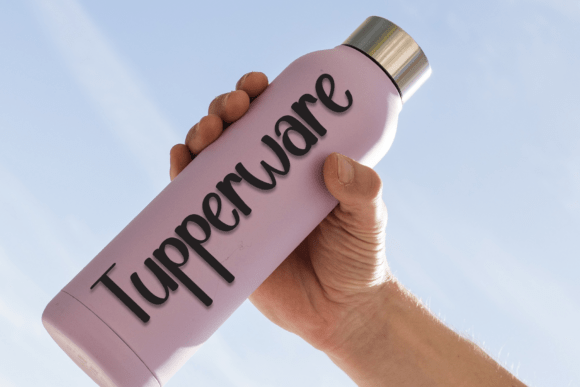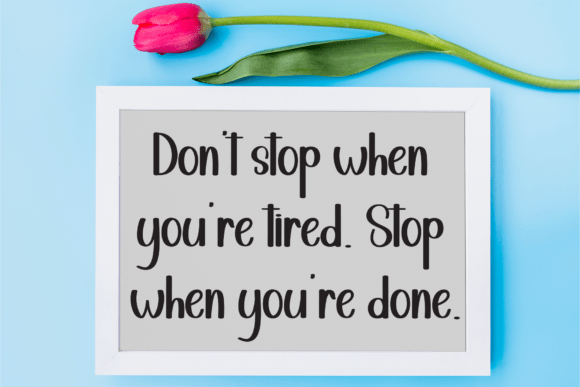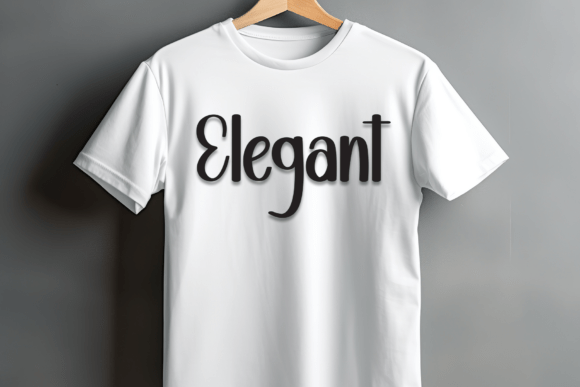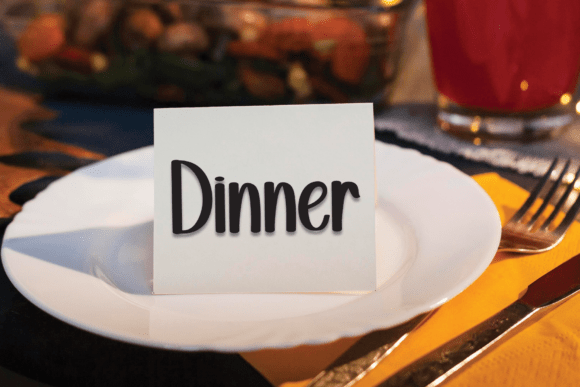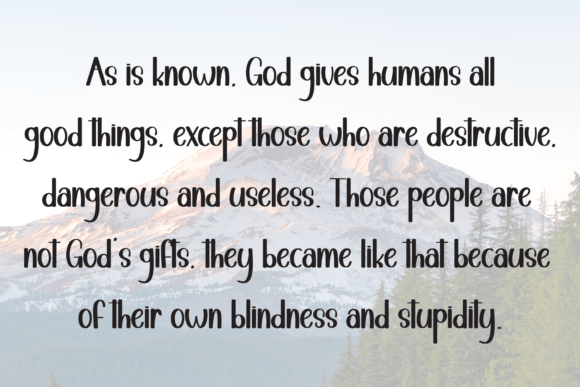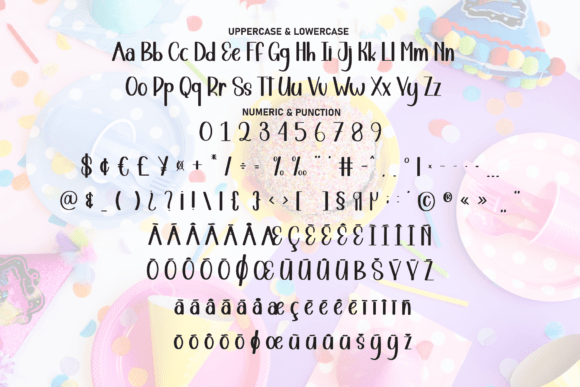
The Ultimate Party Font: A Deep Dive into Birthday Notion
I’ll never forget the time I was working on a birthday card design for a client’s kid’s party. I had the perfect concept, but I just couldn’t find a font that captured the playful, celebratory vibe I was going for. That was until I stumbled upon Birthday Notion, a playful handwritten font that burst with party spirit and festive charm. In this article, I’ll share my experience with Birthday Notion, its features, and how to make the most of it in your designs.
A Personal Review of Birthday Notion
So, what makes Birthday Notion so special? Here are a few things I love about this font:
• ✨ Tall, rounded characters that give it a friendly, approachable feel
• ✅ Cheerful bounce that adds energy to any design
• 🎉 Perfect for birthday cards, celebration banners, invitations, and kids’ party decor
• 👍 Easily pairs with other fonts to create a unique and playful look
While Birthday Notion is an amazing font, it’s not without its quirks. Here are a few things to keep in mind:
• 🤔 Limited use in formal designs – Birthday Notion is best suited for playful, celebratory designs
• ⚠️ Some characters may not work well in small sizes – make sure to test the font at different sizes to ensure it works for your design
The Story Behind Birthday Notion
Birthday Notion was designed by a team of creatives who wanted to create a font that captured the magic of celebrations. Inspired by the joy and excitement of birthdays, they crafted a font that’s both playful and festive. With its tall, rounded characters and cheerful bounce, Birthday Notion is the perfect addition to any design that needs a party vibe.
Is Birthday Notion suitable for body text? No, Birthday Notion is best suited for headings and titles.
Birthday Notion is a versatile font that’s perfect for designers, crafters, and creative hobbyists. With its playful, celebratory vibe, it’s ideal for birthday cards, celebration banners, invitations, and kids’ party decor. By following these tips and guidelines, you can make the most of Birthday Notion in your designs and add a joyful vibe to your creative work.